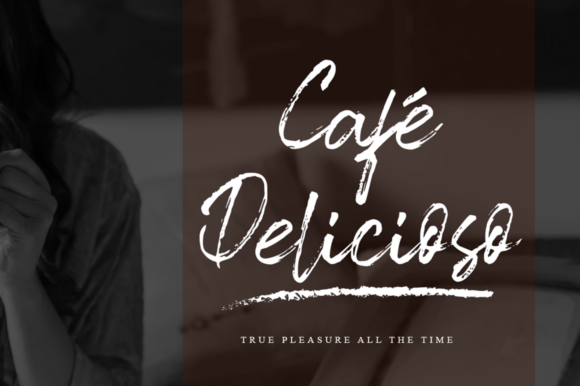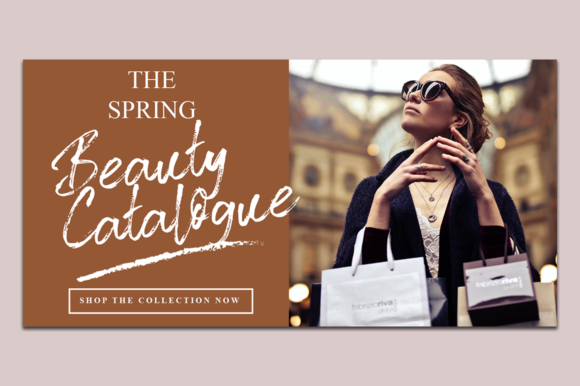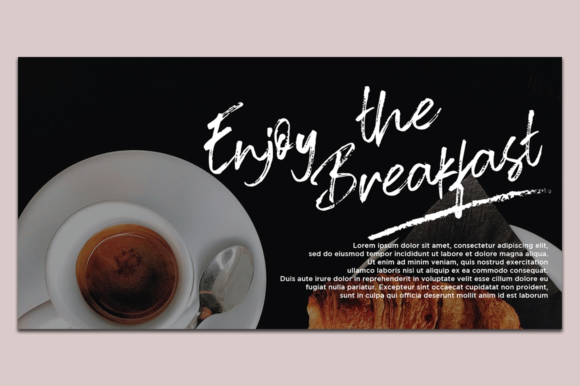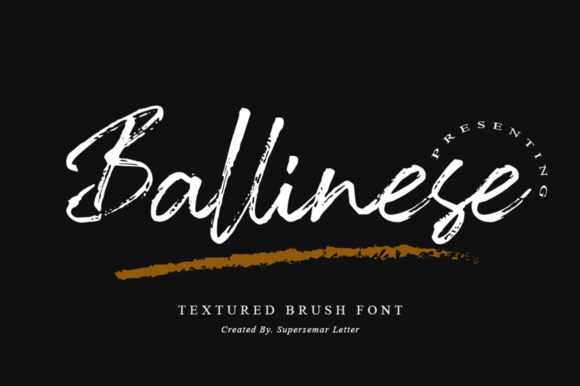
Introduction to Ballinese Font
Ballinese is a futuristic brushed handwritten font.
It looks wonderful in a variety of contexts, and it will add a trendy and unique touch to each of your designs .
Ballinese Font offers exceptional quality and versatility, making it a valuable addition to your design toolkit. Whether you’re creating for personal projects or commercial use, Ballinese Font delivers professional results.